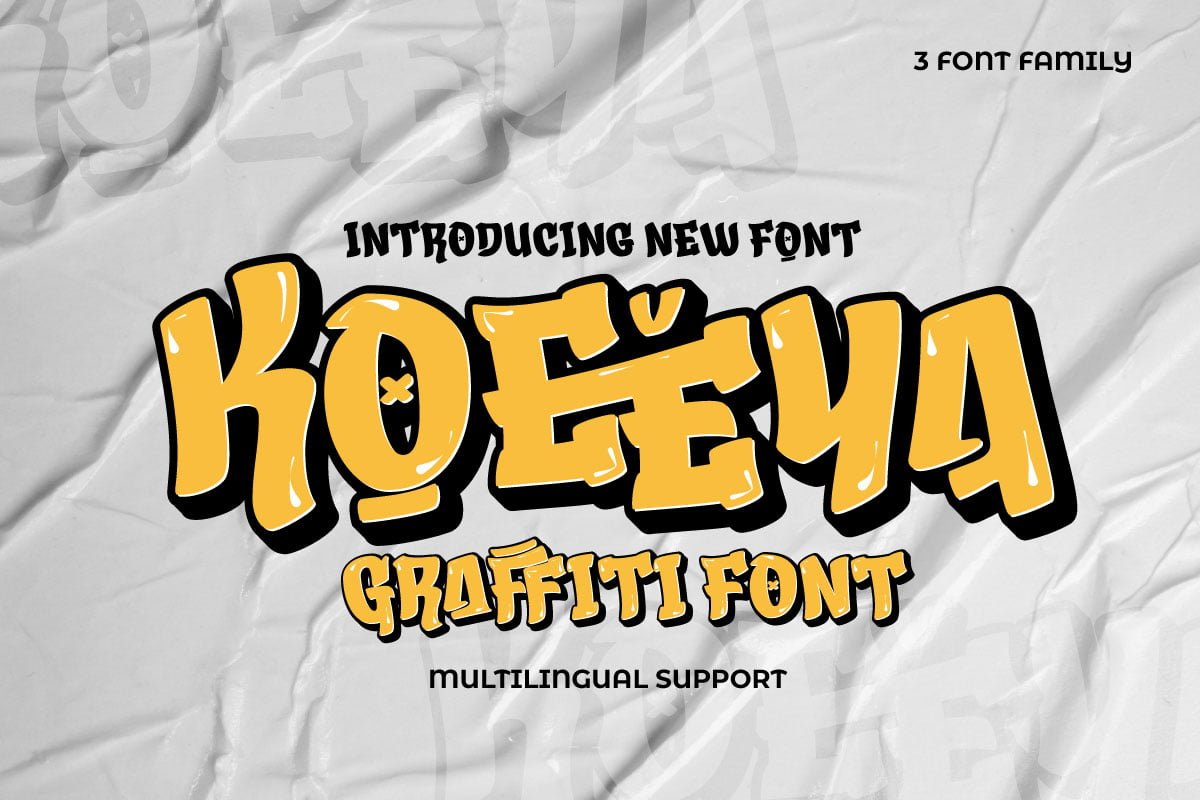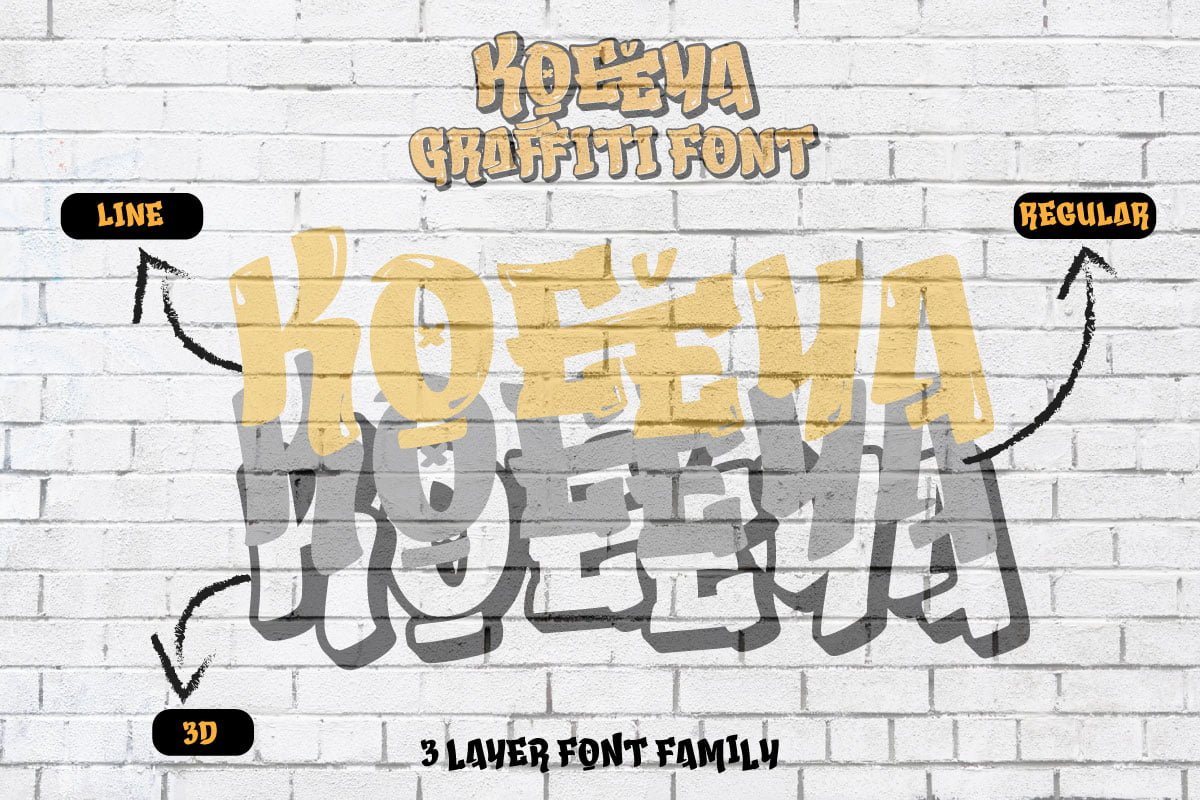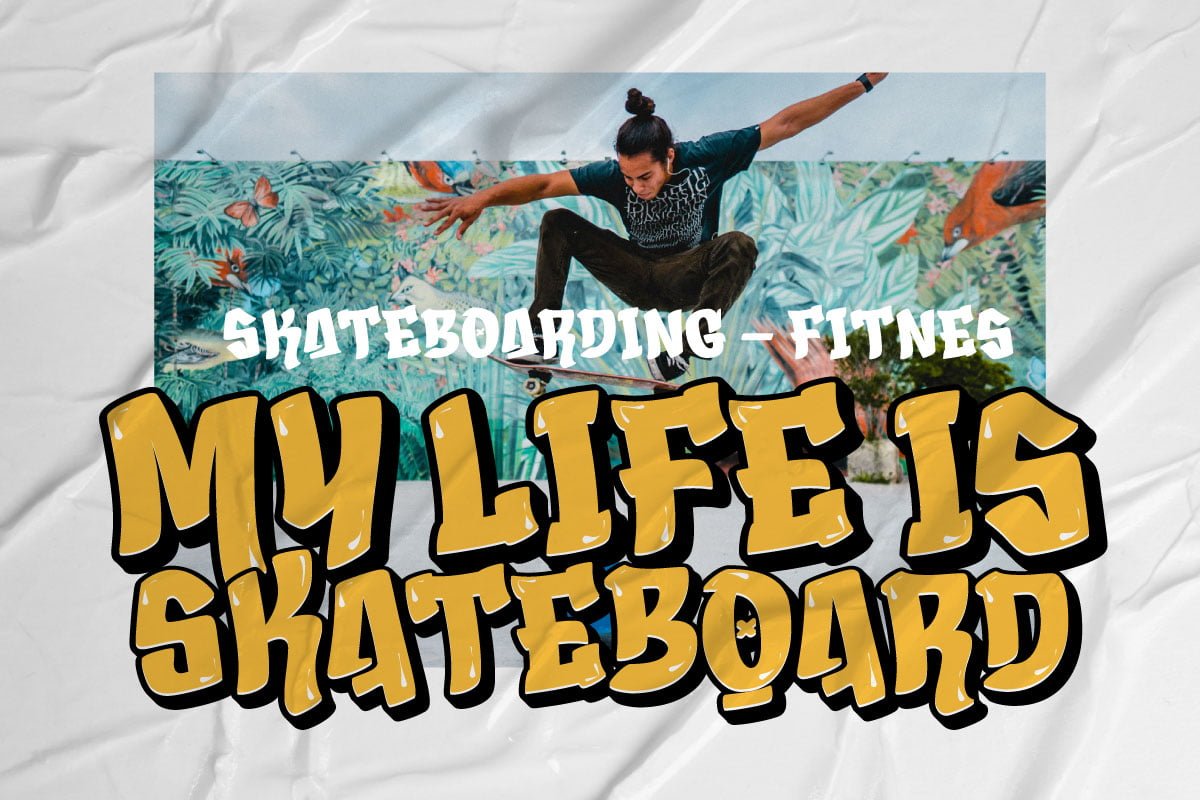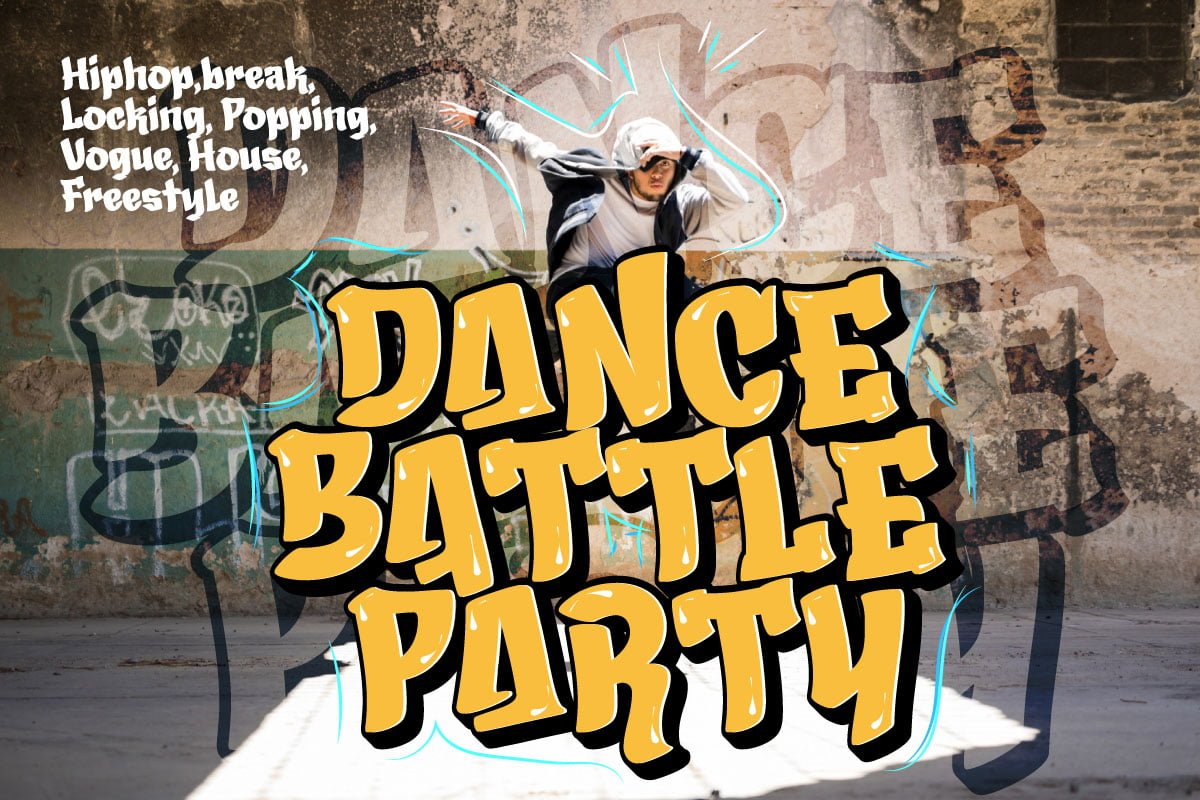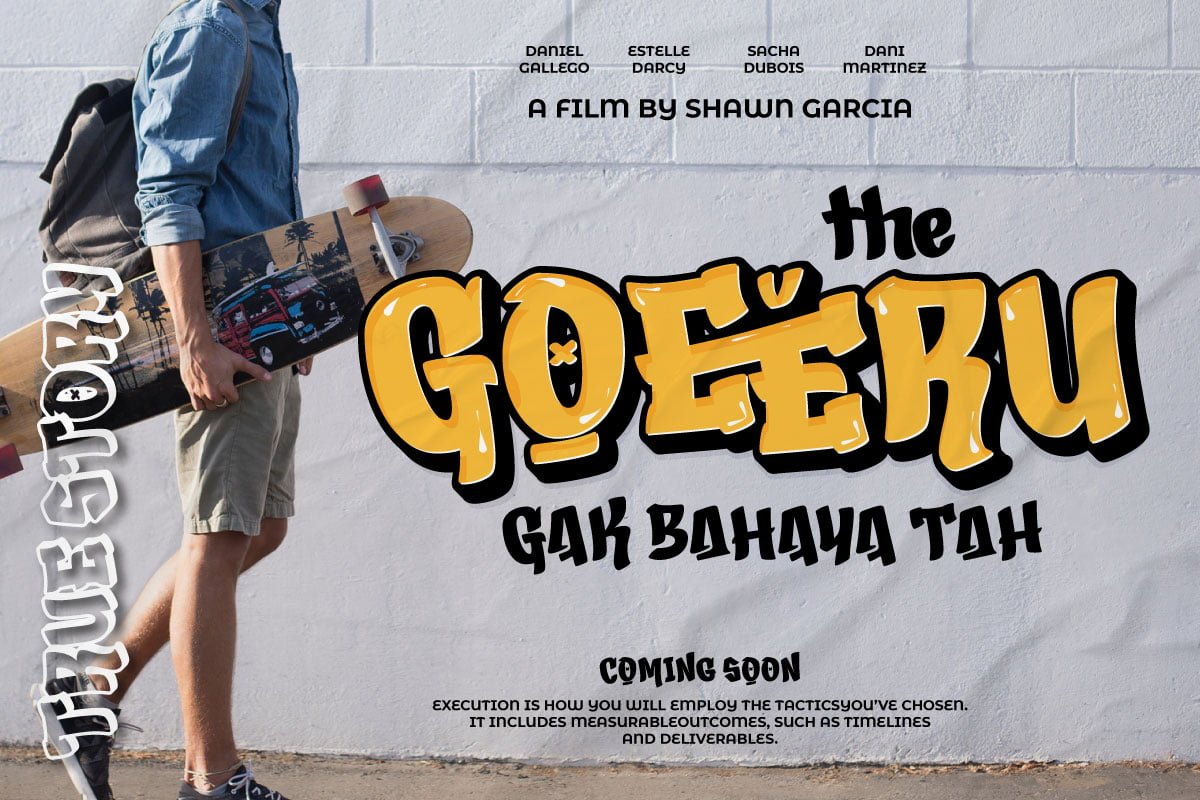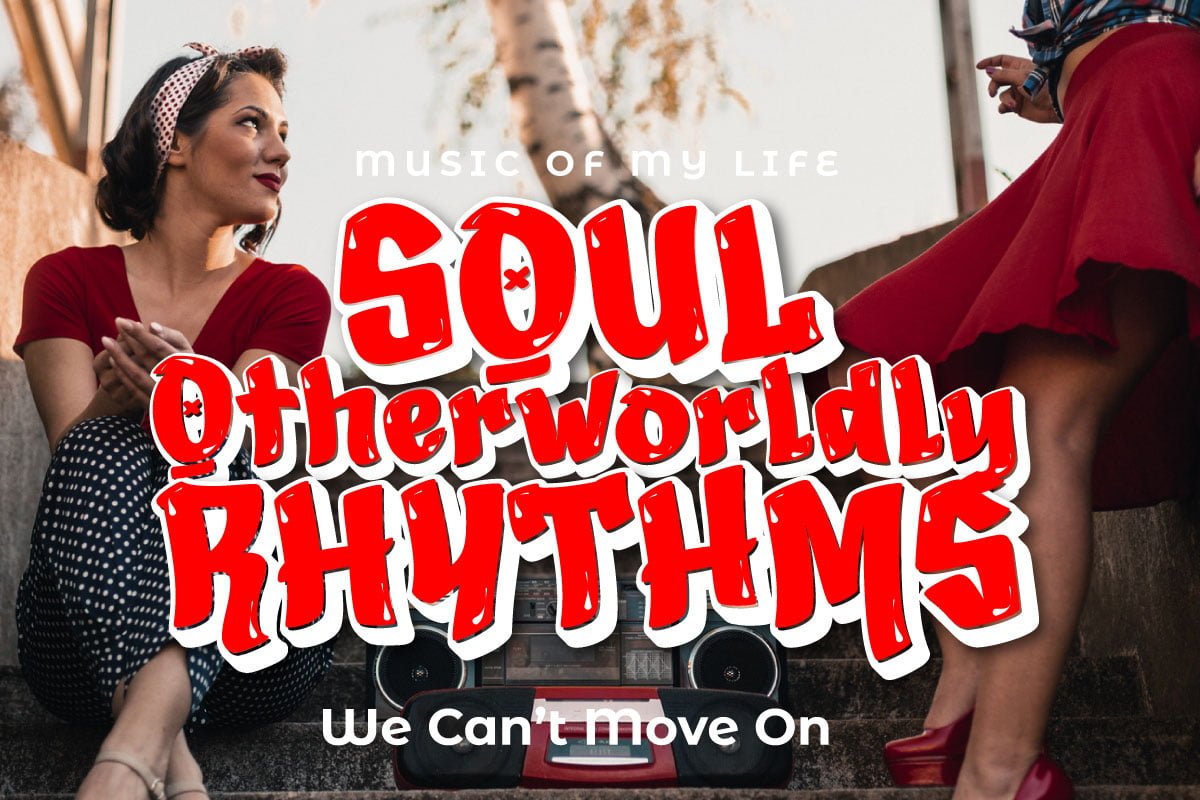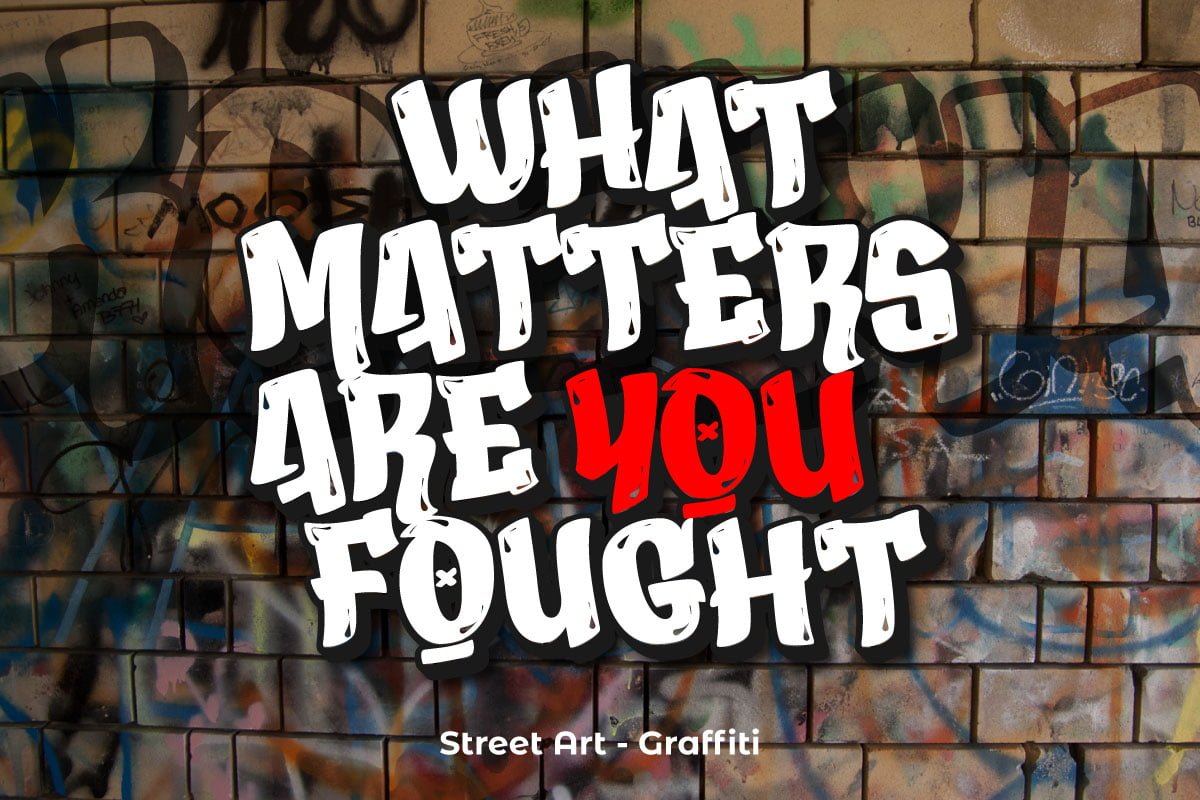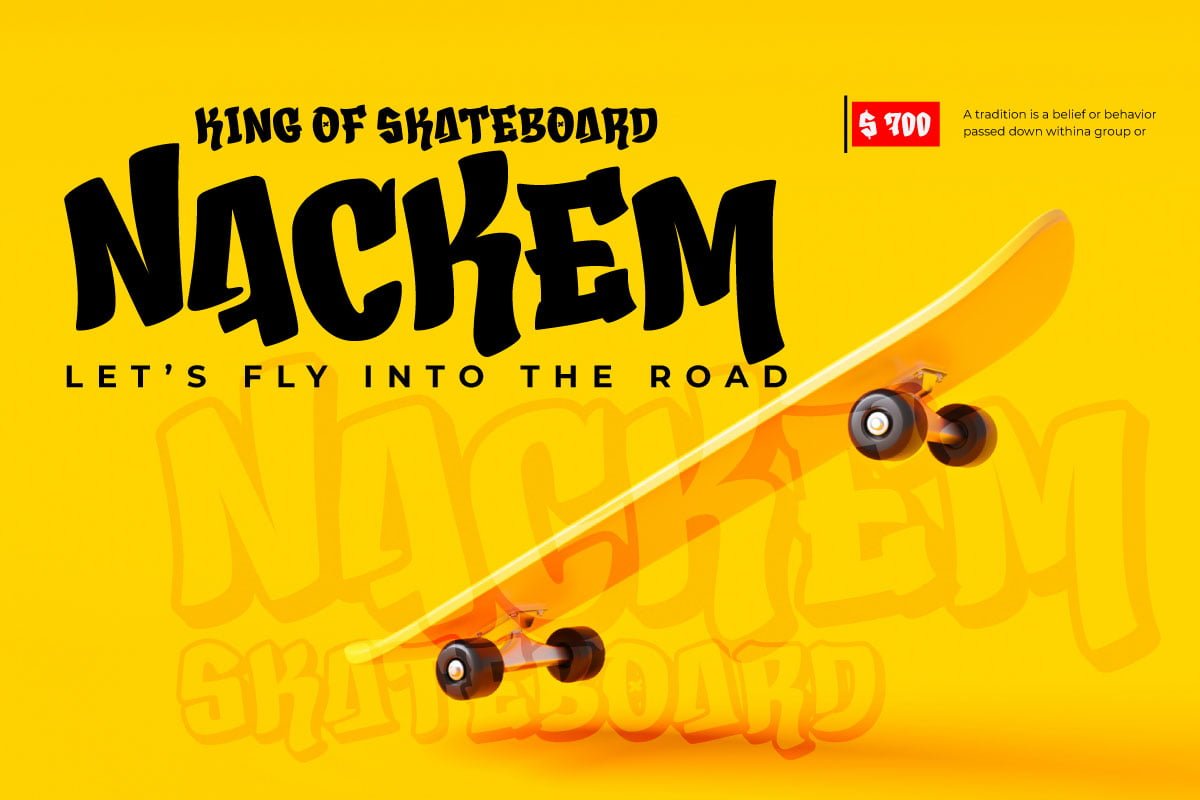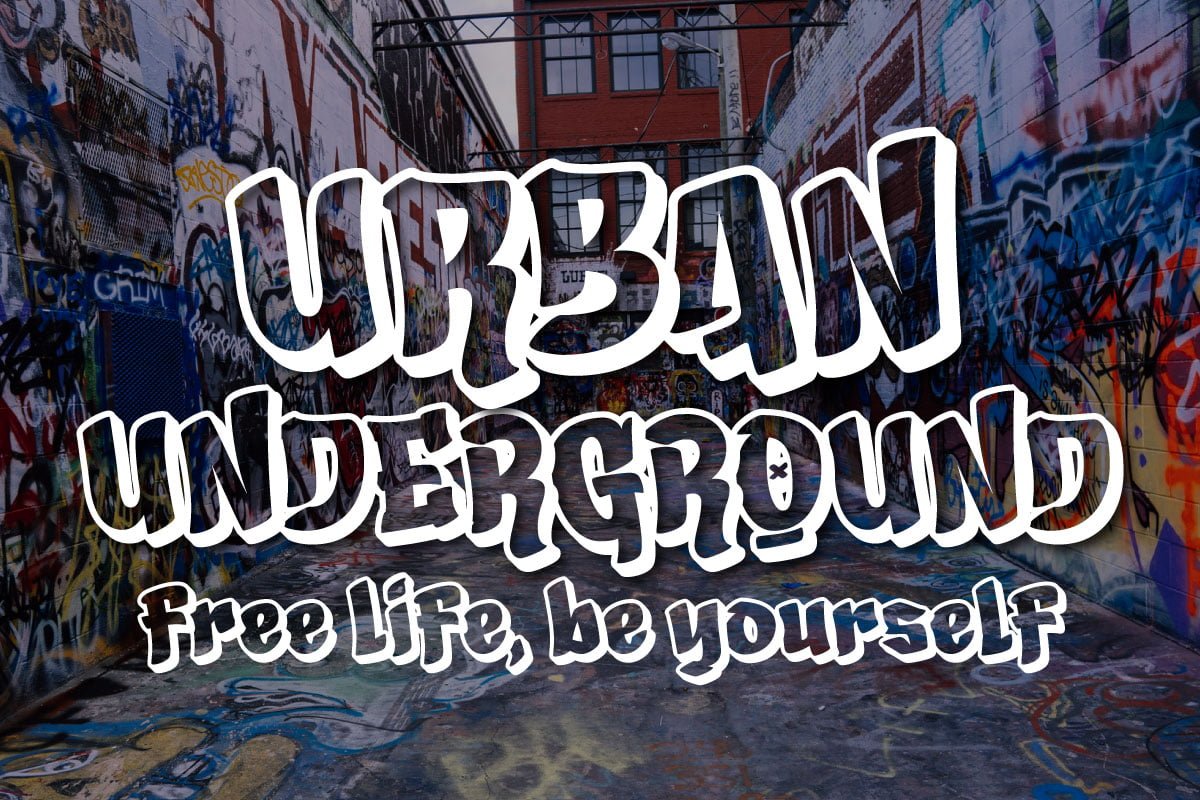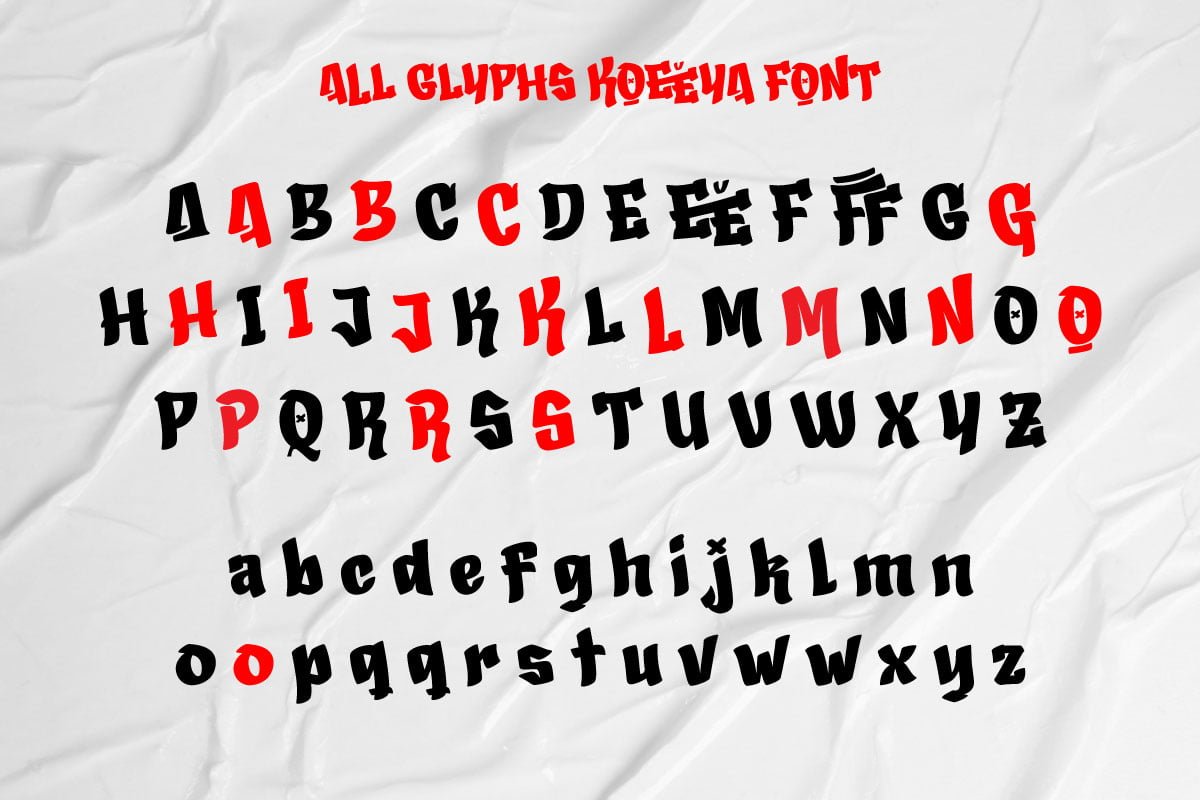
KOEEYA – Display Graffiti Font
Koeeya is a font with a charming Display Graffiti theme. Created to give your projects a touch of freedom and uniqueness, Available in three different variations, Koeeya provides flexibility and the opportunity to express your creativity in limitless ways. You can choose between solid and plain styles, dramatic shadows or interesting textures.
With eccentric designs and beautifully handwritten characters, Koeeya gives each design a different and memorable impression. This font combines the boldness and creativity of graffiti writing with the amazing smoothness and clarity of handwriting.
By using Koeeya, you can give a unique and stylish touch to your promotional materials, posters, merchandise designs and much more. This font exudes energy and freedom, capturing the attention of potential customers in an instant.
Now is the time to let your imagination run wild and express yourself through eye-catching designs. Choose Koeeya as your main font and watch how your project becomes unique, interesting and unforgettable.
• Ligature, Alternate